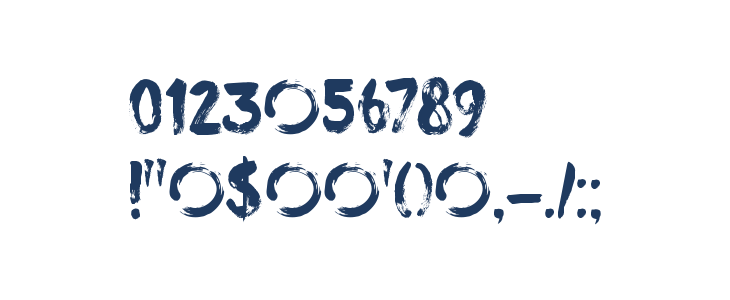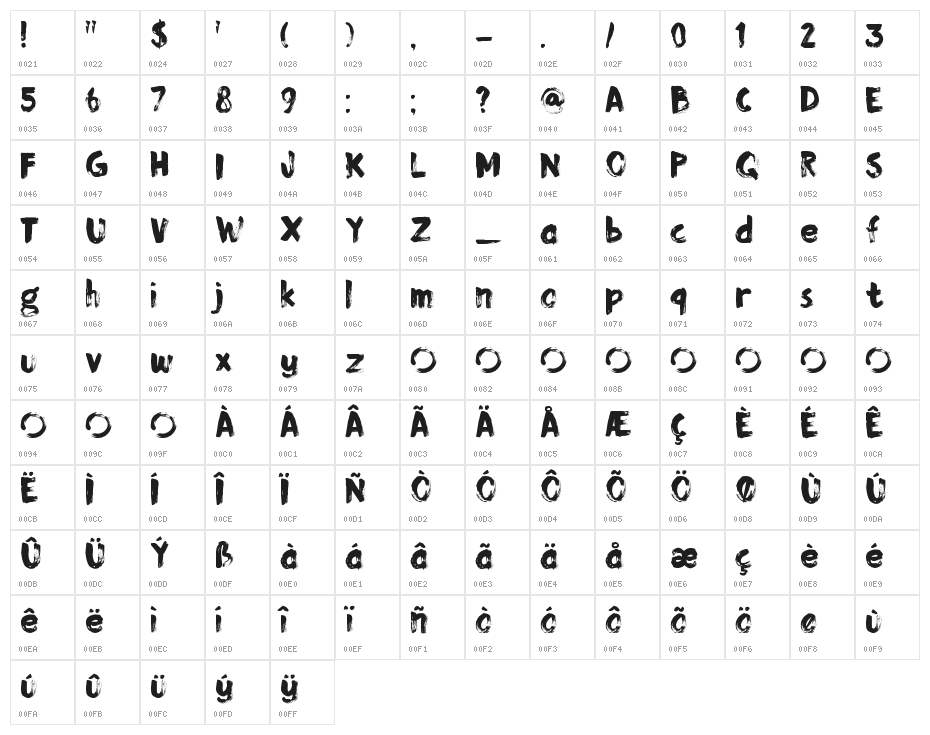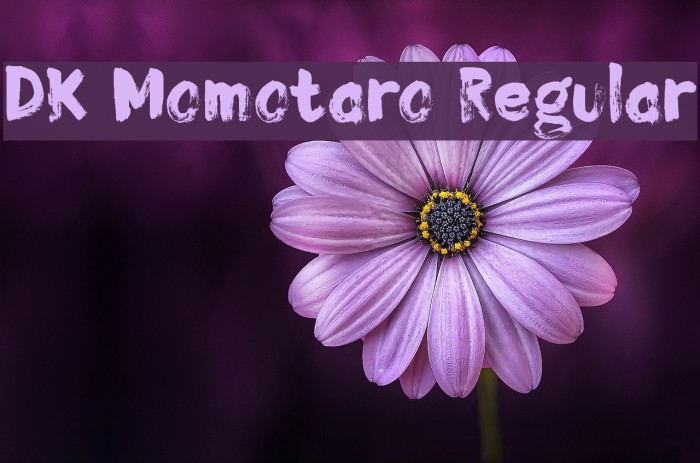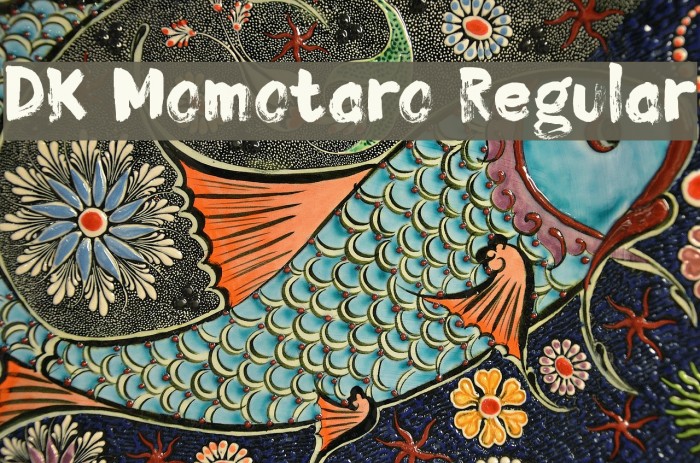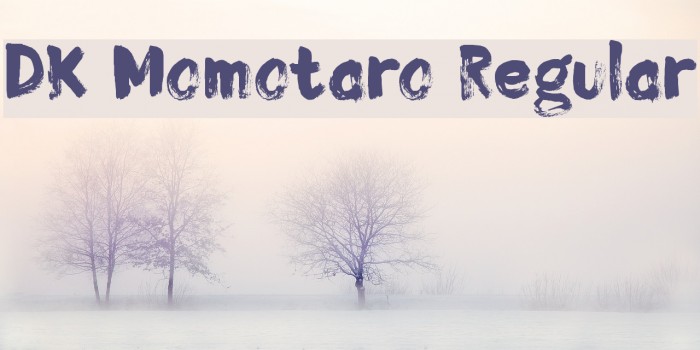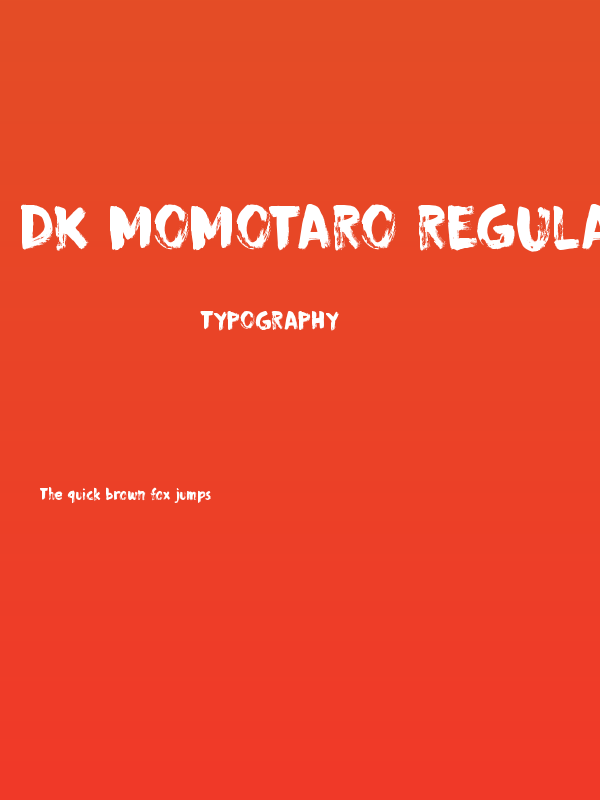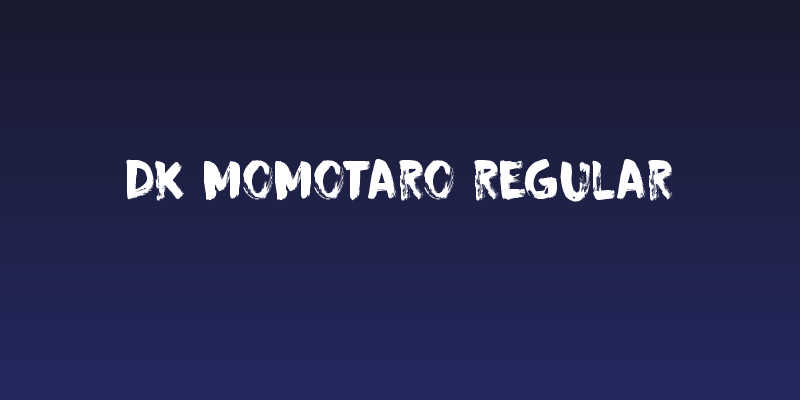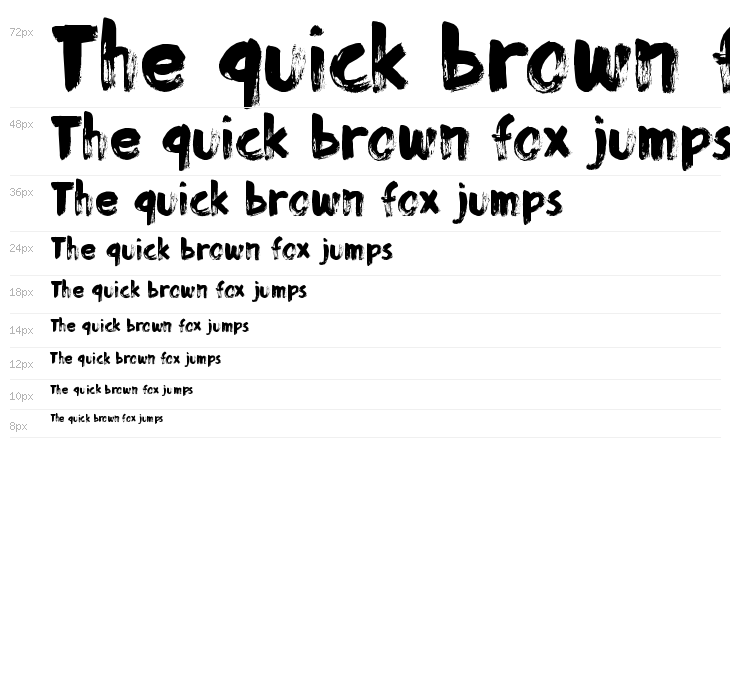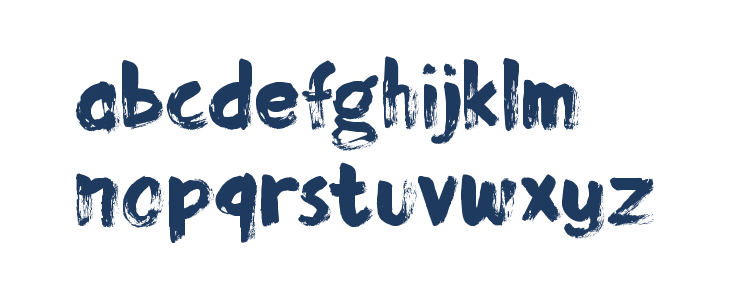
DK Momotaro Regular Font
DK Momotaro Regular Description
This font features a bold, expressive style with a hand-painted appearance. The strokes are uneven and textured, giving it a raw, artistic feel. Each character exhibits a unique brushstroke effect, creating a dynamic and lively look. The uppercase and lowercase letters maintain a consistent style, with a playful and energetic vibe. The numbers and special characters follow the same aesthetic, ensuring a cohesive design throughout. This font is perfect for projects that require a bold statement and a touch of creativity.
| Proposed Projects | Ideal for artistic posters, creative branding, album covers, and expressive headlines. |